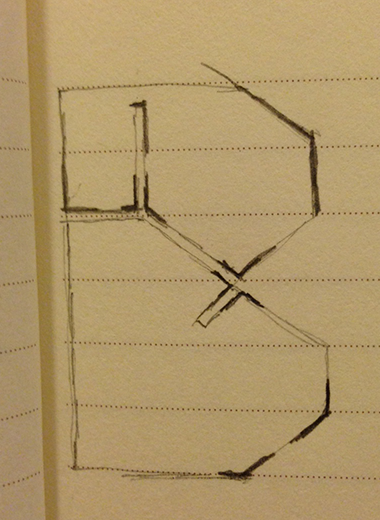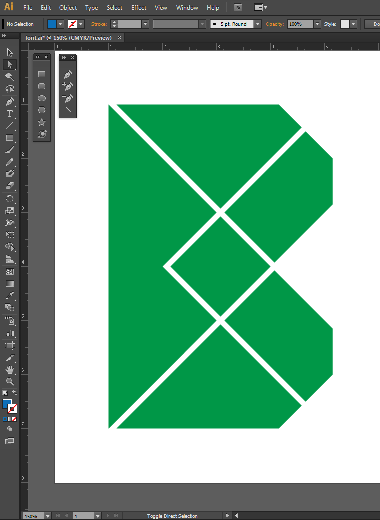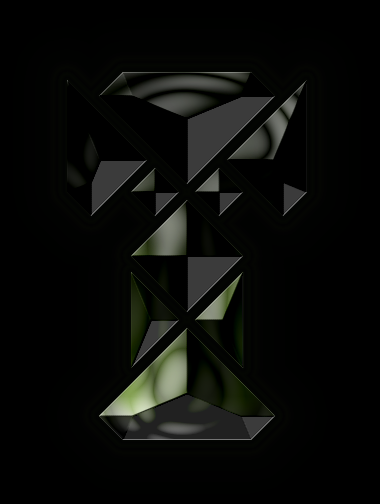
This fs started out as a sketch of a very rough idea. Idea had, I moved it over to Illustrator and did a few characters, which is when it found the central diamond and the font evolved from the original idea. Ported it over to fontstruct to finalize. The objects turned out too black heavy. Added additional diagonals to lighten the larger elements and standardized the glyphs. Toyed with the idea of making it monospace but gave it up when the wider I looked too heavy.
Very nice decorative font. It reminds me of tangram puzzles. I think, there are more potential in this theme to develop some alternate versions, if you keep toying with. 10/10
Wonderful stuff, each character a unique constellation of shapes.
Brilliant!
Precious! I'm with Frodo7 and the guys! 10/10.
Really decorative, it looks really nice :)
Fortunately your imagination is matched by your talent - another great design. 10/10+
Wow, love it!
Love it, for some reason this reminds me of cards.
Very cool. AFT, this you might like.
What a beautiful sample - I'm in awe of your skill.
reminds me of those:
Great stuff here!
It's very geometric and mathematic the result is great I love it
Nice work, an awesome font!